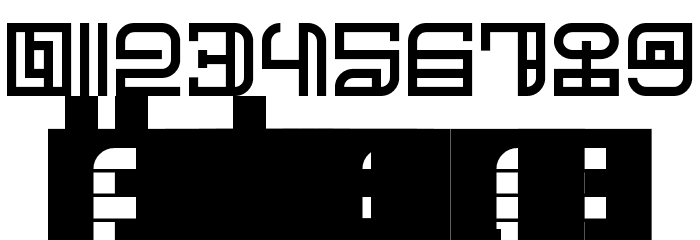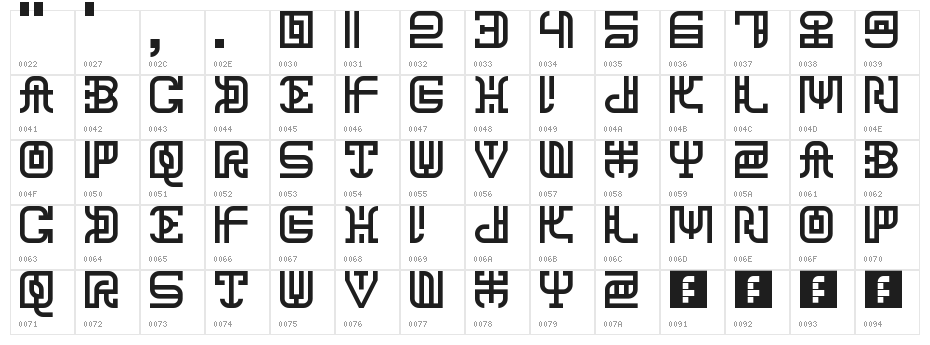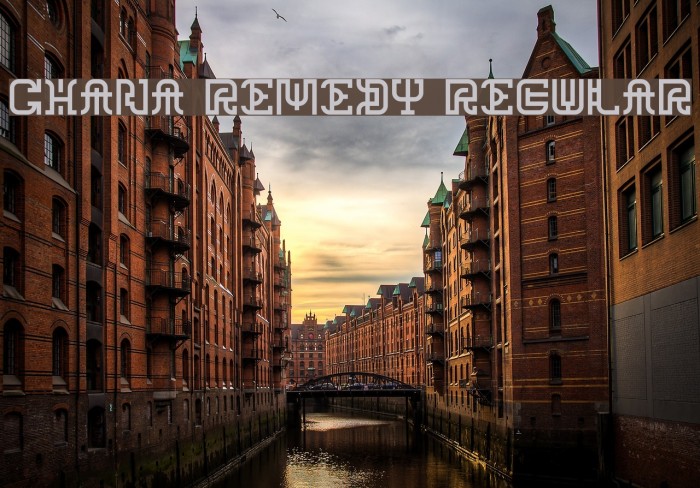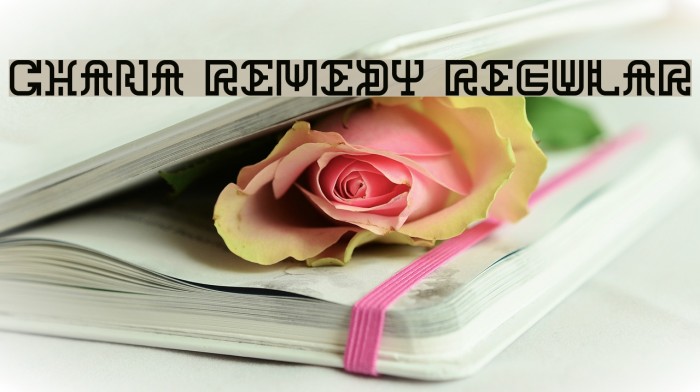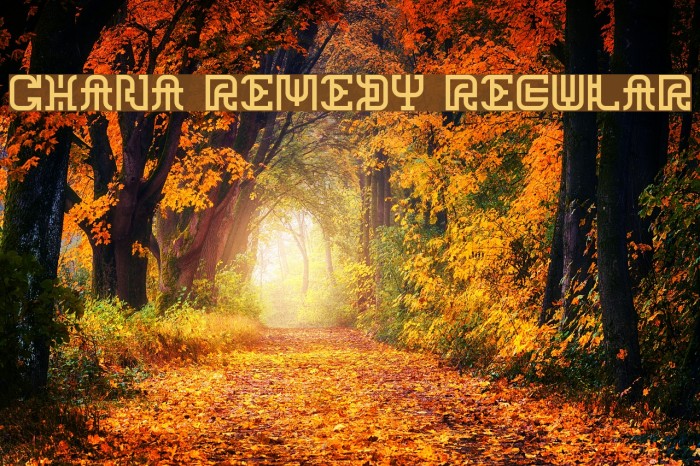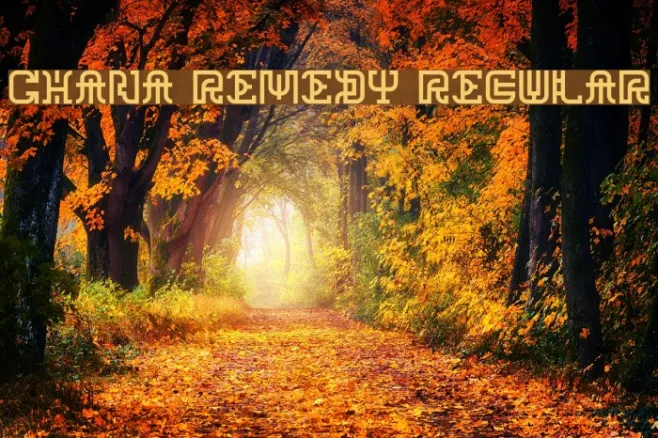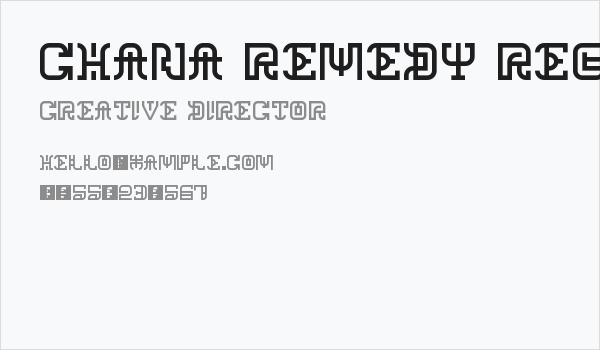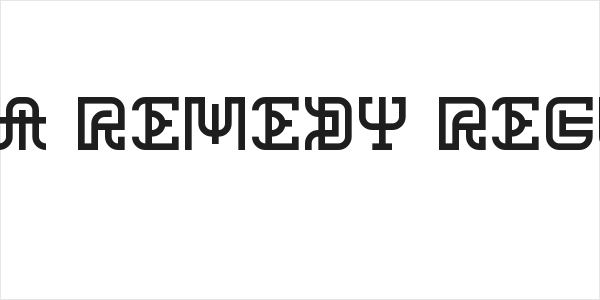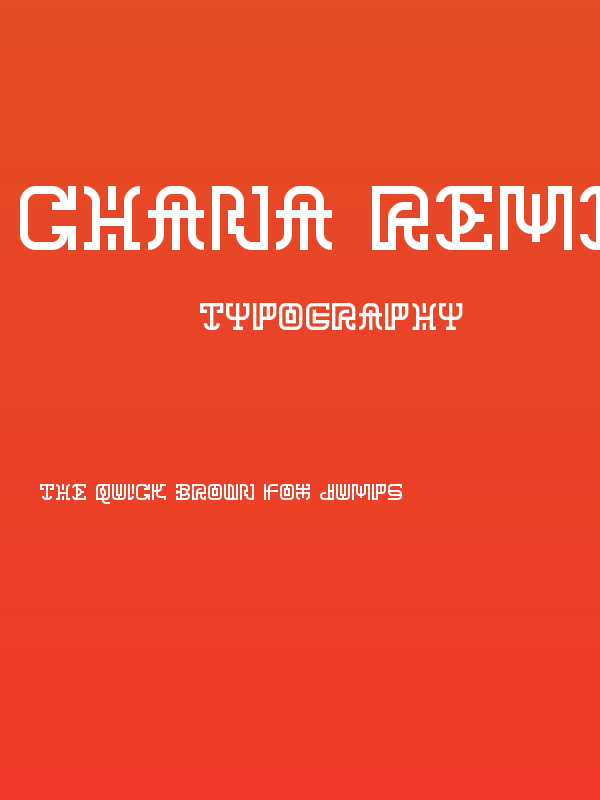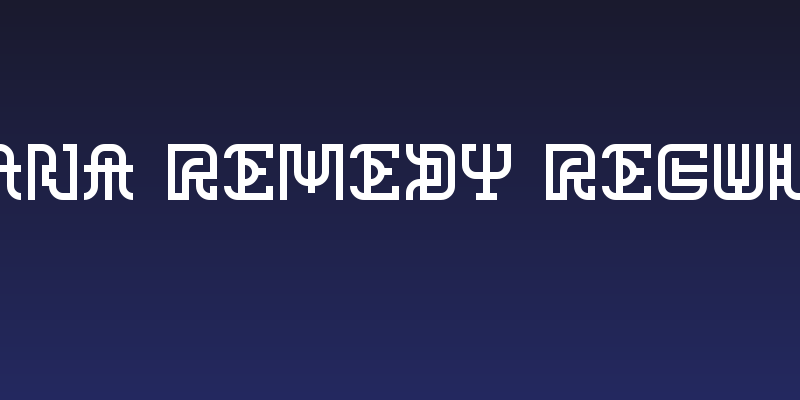
Chana Remedy Regular Font
Chana Remedy Regular Description
This font features a bold and geometric design with a futuristic flair. The characters are constructed with thick, uniform strokes that create a sense of solidity and strength. Each letter is crafted with sharp angles and straight lines, giving it a modern and industrial appearance. The uppercase and lowercase letters maintain a consistent style, while the numbers and special characters integrate seamlessly into the overall design. The font's unique structure makes it stand out, with a focus on symmetry and balance. Its boldness is evident in the heavy weight of the strokes, which are evenly distributed across each character, ensuring readability and impact.
| Use Case | Logos, Headlines |
| Proposed Projects | Ideal for technology branding, sci-fi movie posters, video game titles, and modern architectural designs. |